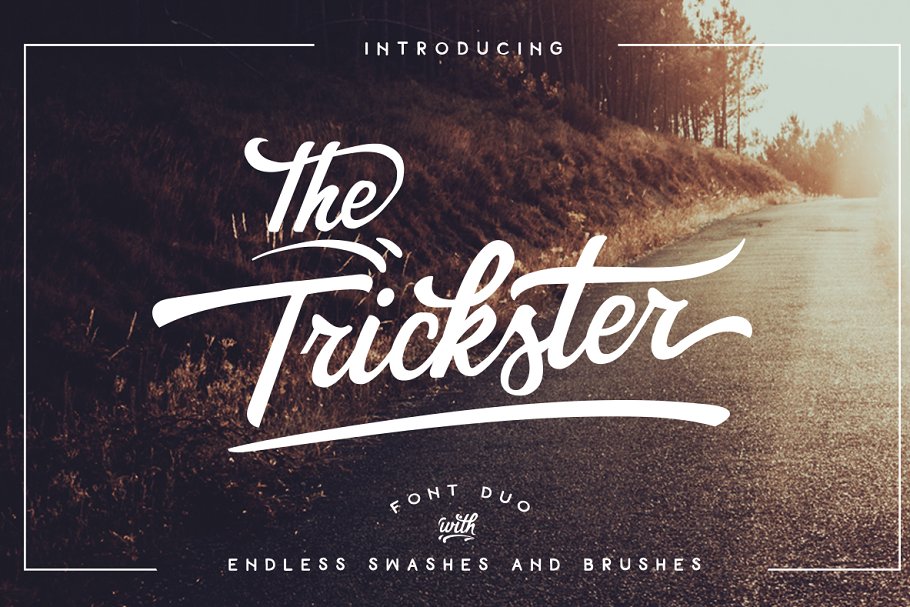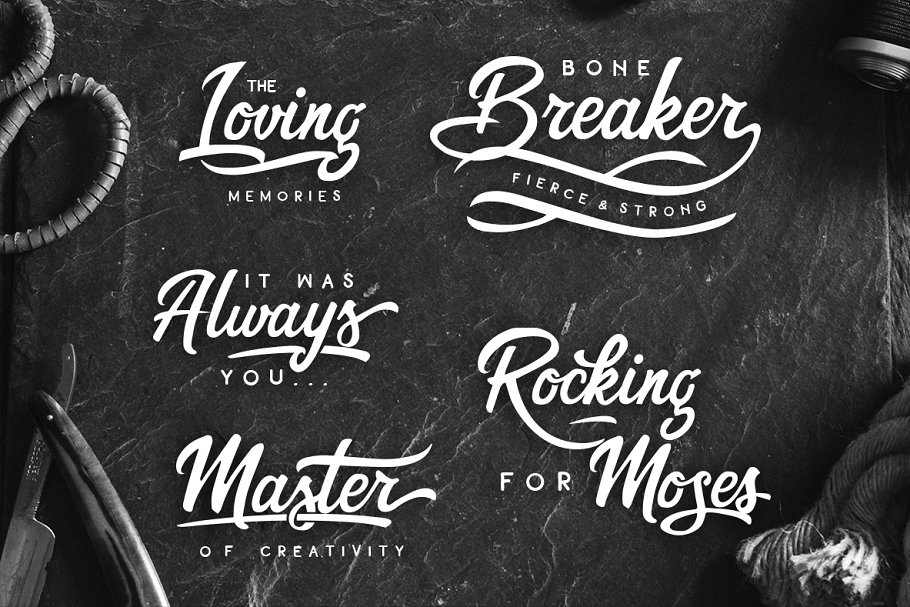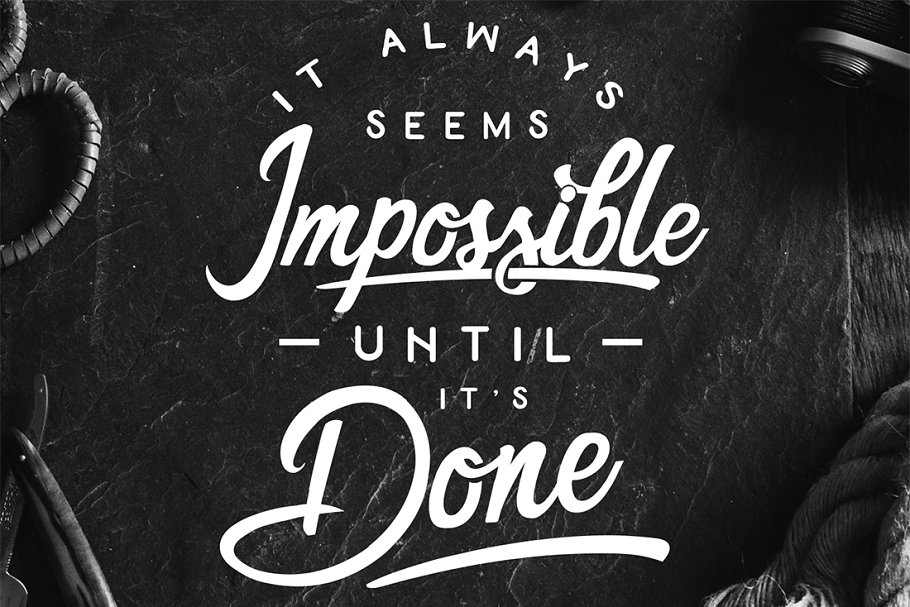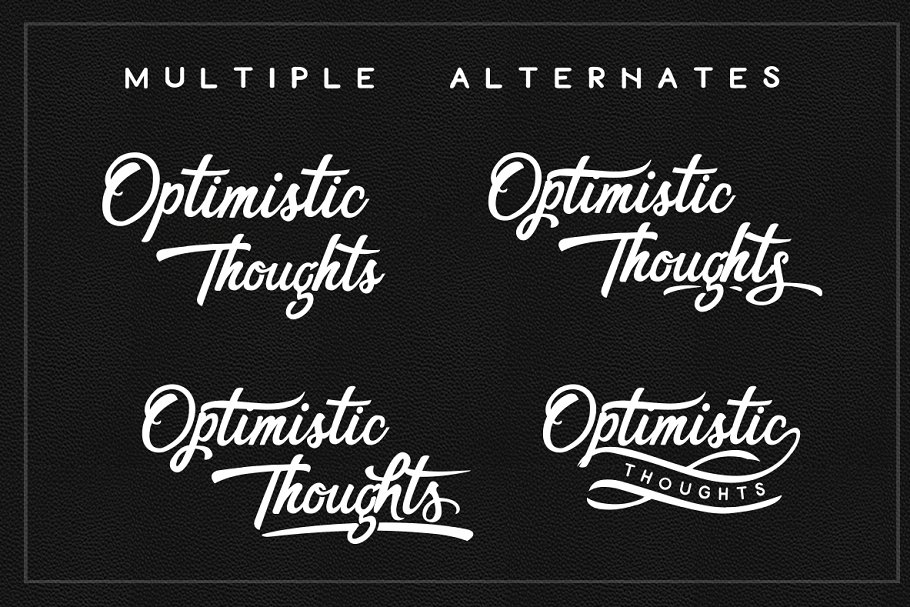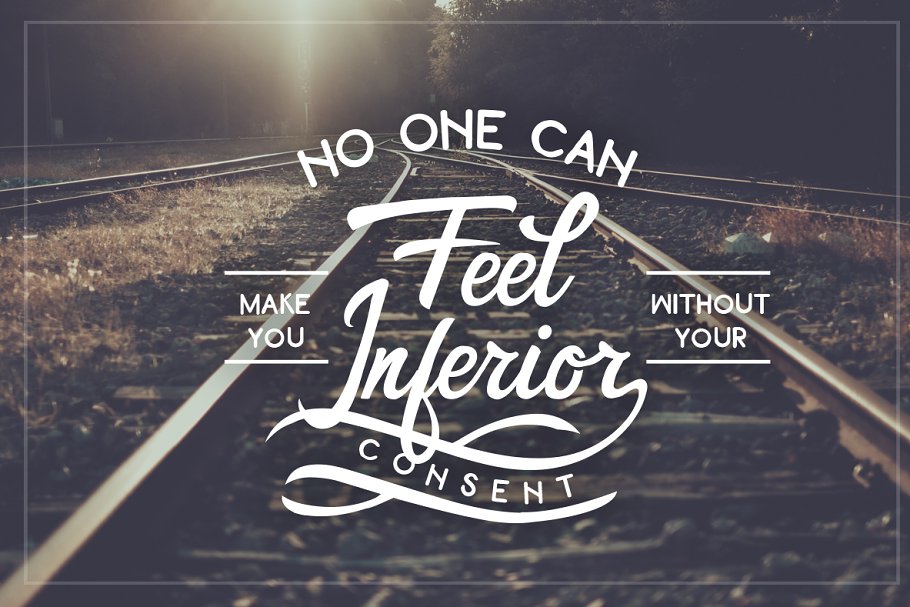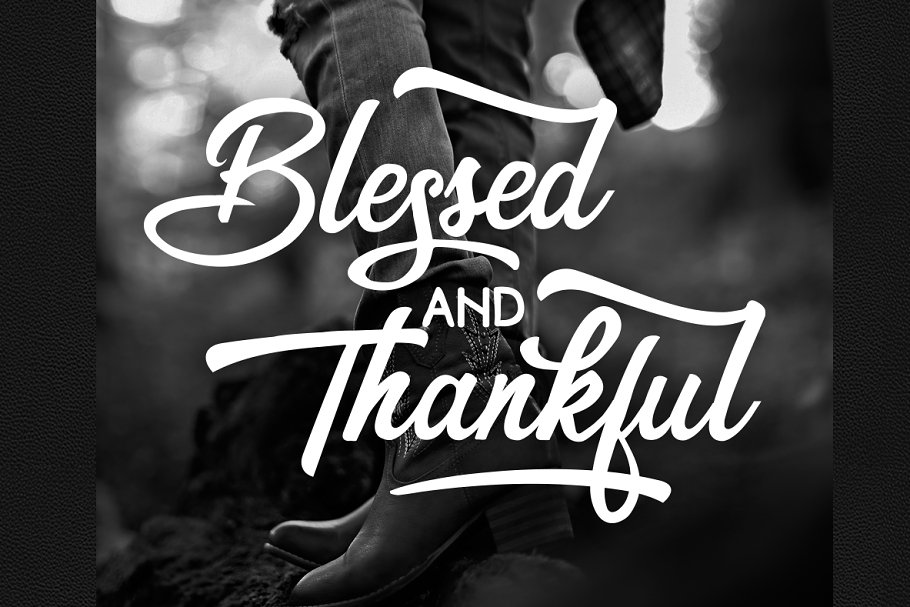
About the The Trickster Duo extras Font
The Trickster is a display font with lots of alternatives and brushes plus a complementary font and another one with swashes, INCLUDED:The Trickster Display OtfThe Trickster Display TtfThe Trickster Regular OtfThe Trickster Regular TtfThe Trickster Swashes OtfThe Trickster Swashes TtfTo access all OpenType Stylistic alternates, you need a program that supports OpenType features such as Adobe Illustrator, Adobe Photoshop, CorelDraw and Microsoft word